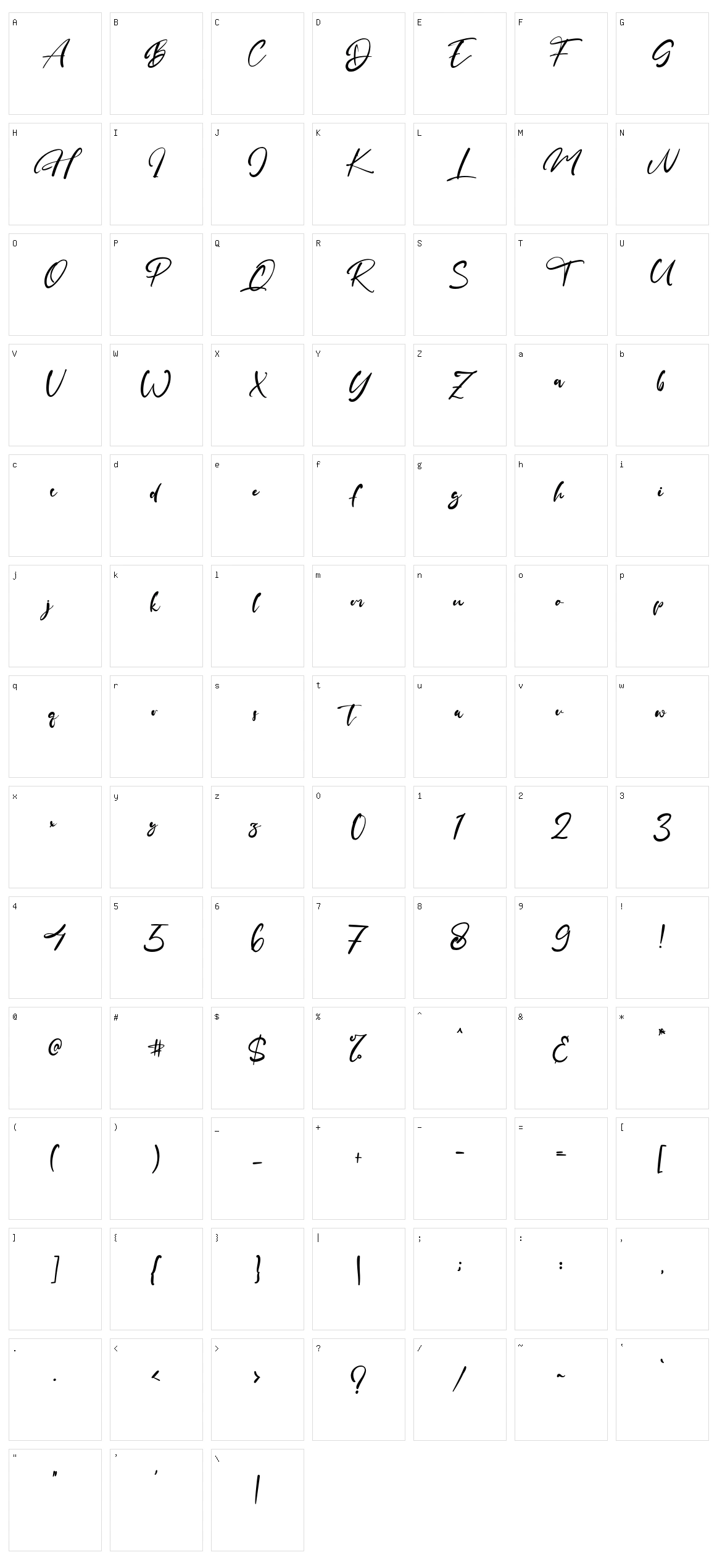
The free font Kingwood is carefully designed by Vztype Studio, showcasing a thoughtful balance of creativity and usability and falls under the Script font style. When you download the ZIP file, it contains only 83.5 KB of font files, making it lightweight and quick to download. Please review the license details below to understand permitted usage and distribution rights. If license information is not available, we recommend using this font for personal projects only or contacting the author directly for commercial usage permissions.